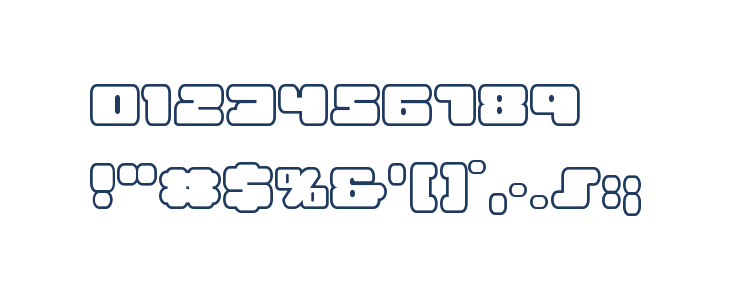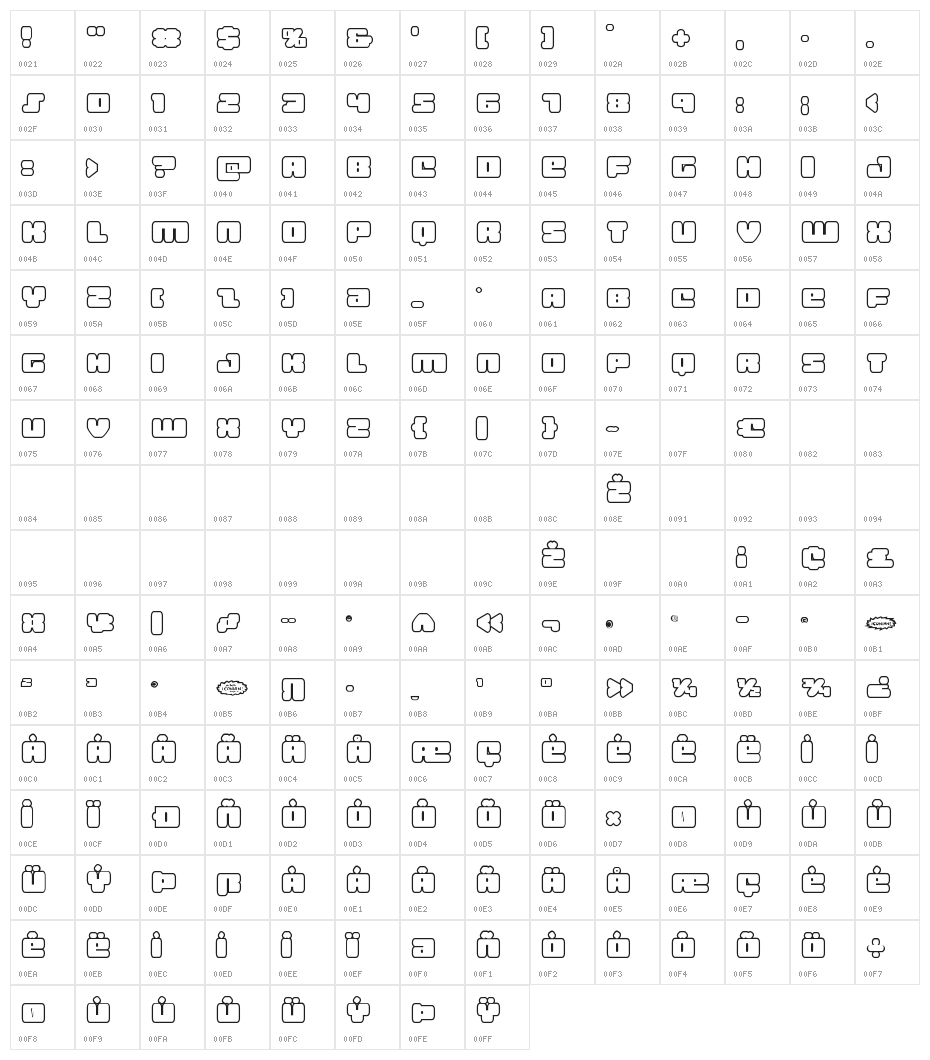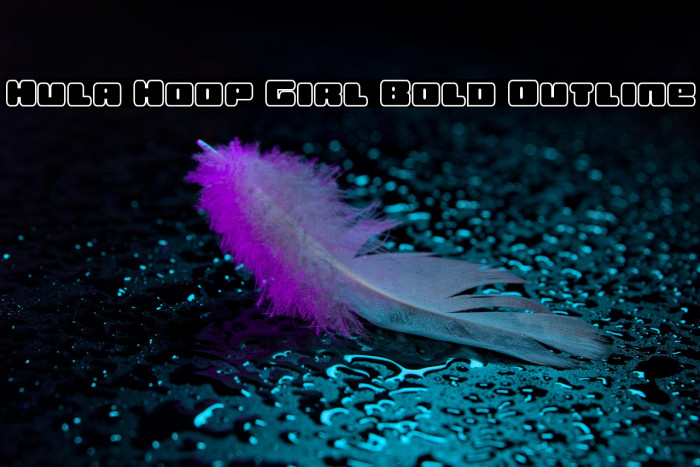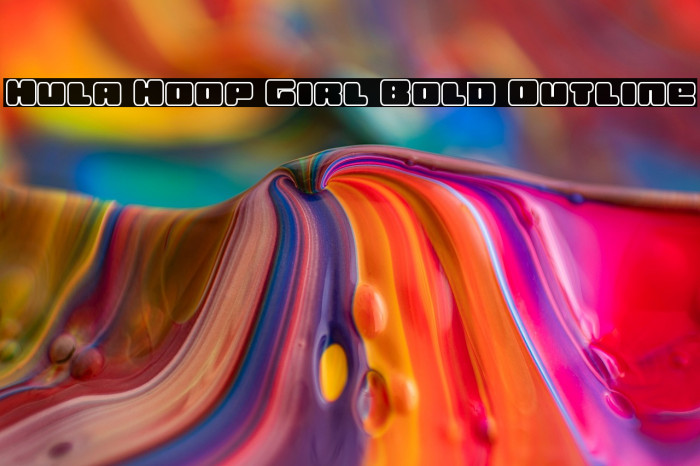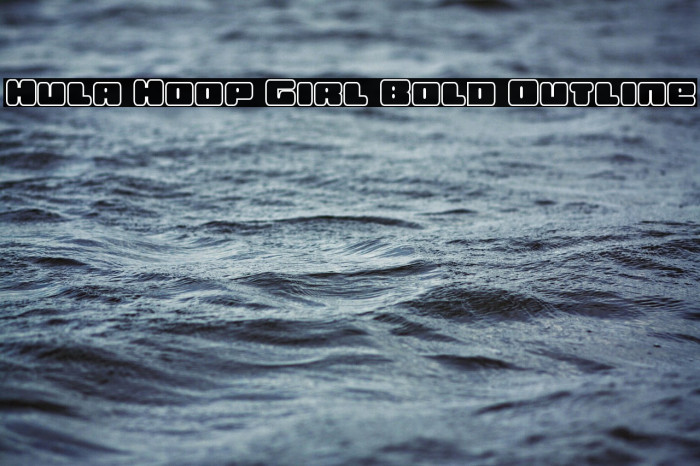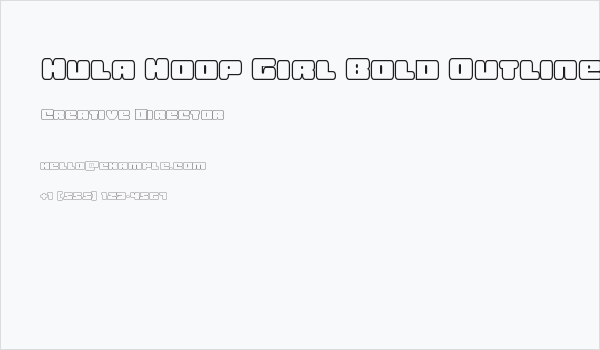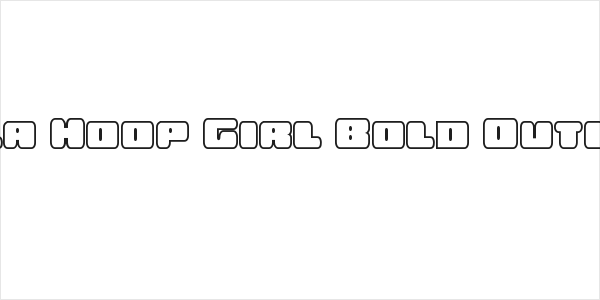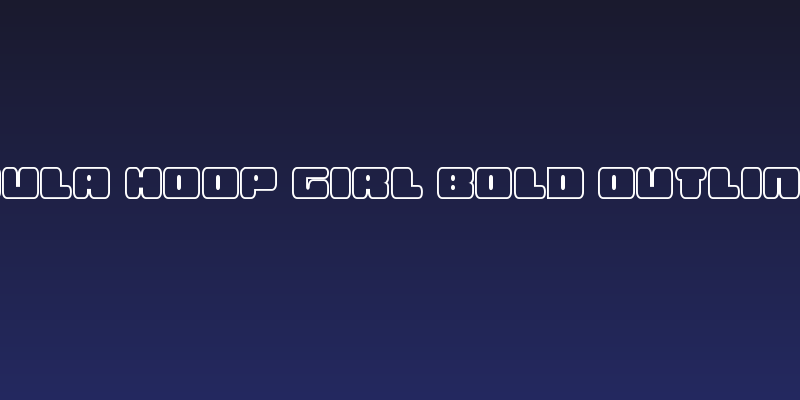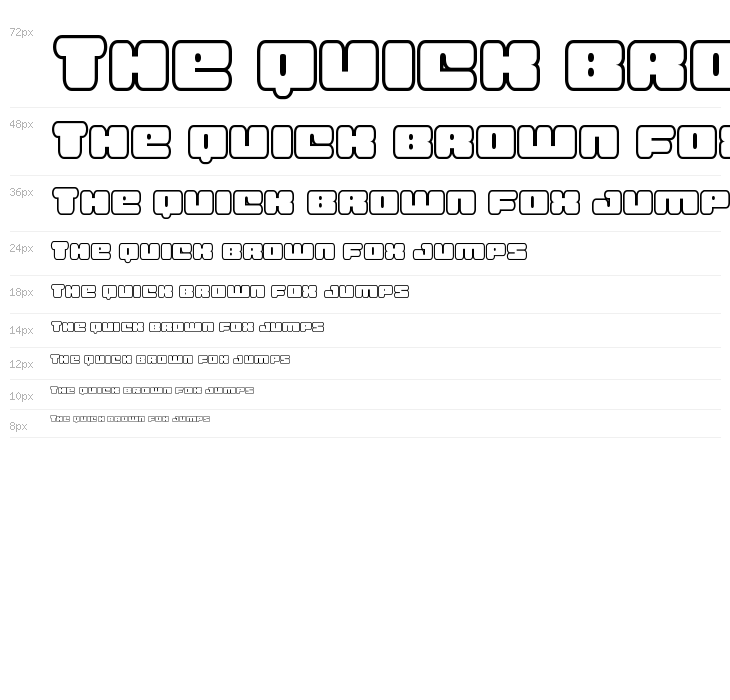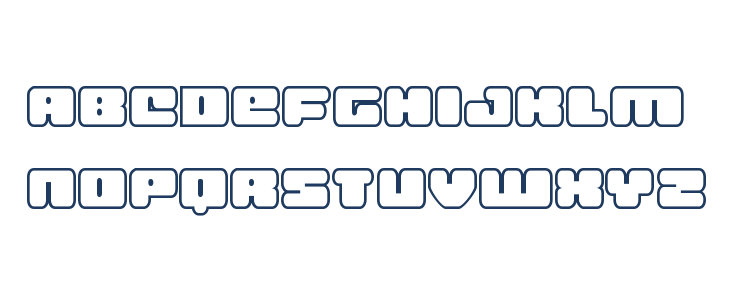
Hula Hoop Girl Bold Outline Font
Hula Hoop Girl Bold Outline Description
This playful and bold font features a unique outline style that gives it a distinctive, eye-catching appearance. The characters are rounded and bubbly, creating a sense of fun and whimsy. Each letter and number is outlined with a consistent thickness, enhancing its boldness while maintaining readability. The font's geometric shapes and smooth curves make it suitable for creative and informal designs. Its playful nature is emphasized by the uniformity of the outline, which adds a modern touch to its overall style. This font is perfect for projects that require a lively and energetic vibe.
| Overall Style | Playful, Modern |